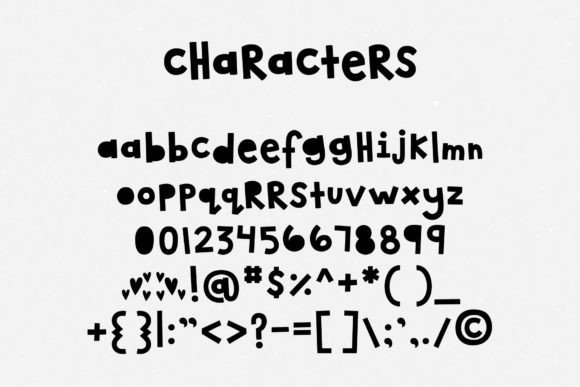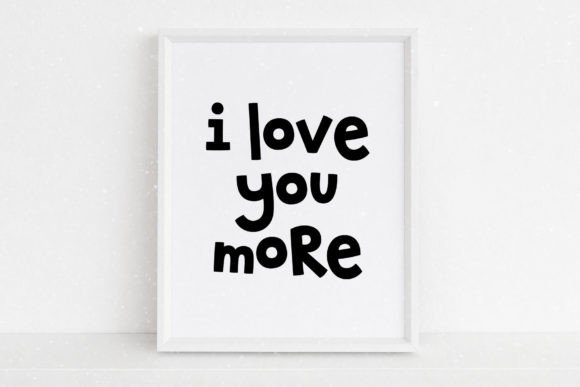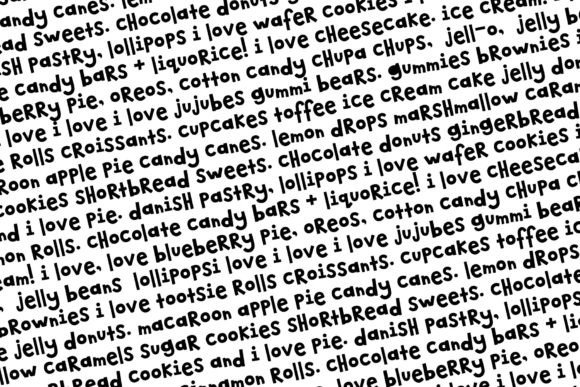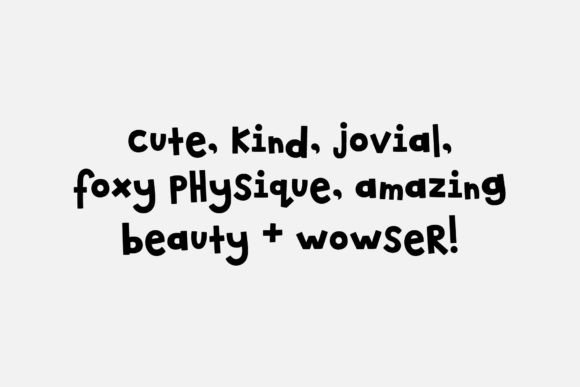
The Sweetest Font You’ll Fall For: A Deep Dive into Fallen for You
I still remember the design project that led me to discover the charming Fallen for You font. I was working on a children’s book, and my client requested a font that was playful, innocent, and whimsical. I scoured the internet, tried out dozens of fonts, but none seemed quite right. That was until I stumbled upon Fallen for You. Its soft curves and delightful details instantly won me over, and I knew I had found the perfect fit for my project.
So, what makes Fallen for You so special? Here are a few things that I absolutely adore about this font:
- ✨ Adorable display font: Fallen for You is perfect for headlines, titles, and any text that needs a touch of whimsy.
- ✅ Soft curves and playful details: The font’s gentle curves and charming details evoke a sense of innocence and sweetness.
- 🌈 Versatile color palette: Fallen for You looks great in a variety of colors, from bright and bold to soft and pastel.
Of course, no font is perfect, and Fallen for You has a few quirks to keep in mind:
- 🤔 Limited use for body text: While Fallen for You is stunning as a display font, it may not be the best choice for longer blocks of text.
- ⚠️ Some letters may require manual kerning: As with any font, you may need to adjust the kerning on certain letters to get the best results.
- Experiment with OpenType features like ligatures and stylistic alternates to add more whimsy to your text.
The Story Behind Fallen for You
Fallen for You was designed with the intention of capturing the essence of childhood wonder and innocence. The designer aimed to create a font that would bring a smile to people’s faces and add a touch of magic to their designs. With its soft curves and playful details, Fallen for You is sure to evoke a sense of nostalgia and playfulness.
| Font Name | Fallen for You Font |
| Author | Miss Tiina |
| What type of projects is Fallen for You best suited for? | Fallen for You is perfect for children’s books, greeting cards, and any project that requires a playful and whimsical touch. |
| Is Fallen for You available in different weights or styles? | Currently, Fallen for You is available in a single weight, but its versatility and range of OpenType features make it adaptable to various design needs. |